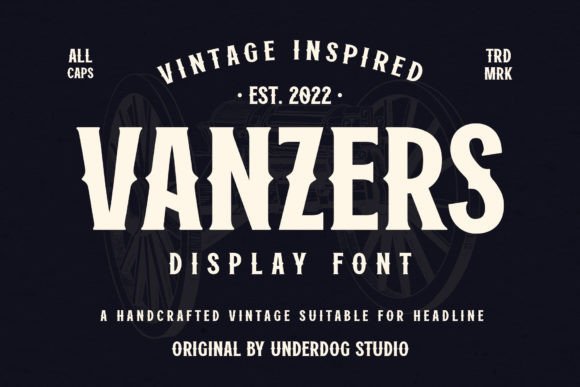
Introducing Vanzers Font, the ultimate choice for all your camping-themed design needs! Created by the talented Arterfak Project, this strong and captivating sans serif font is guaranteed to elevate your designs and leave a lasting impression. Get ready to embark on a typographic adventure like no other!
With its unique spurs added in the middle of letters, Vanzers exudes confidence and masculinity. Every character is meticulously crafted to ensure a powerful and bold appearance, making it perfect for headlines, labels, logos, storefronts, branding, billboards, and so much more. Whether you're designing for an outdoor adventure brand, a camping equipment store, or simply want to add a touch of ruggedness to your project, Vanzers has got you covered.
But what sets Vanzers apart from other fonts? Its versatility and attention to detail make it a true standout. The special characters included in this font open up a world of possibilities, allowing you to add unique and creative touches to your designs. Whether you want to incorporate decorative elements or add a touch of elegance, Vanzers has the tools you need to make your designs truly exceptional.
Not only does Vanzers offer stunning aesthetics, but it also provides multilingual support. Break through language barriers and reach a global audience with ease. No matter where your customers are located, Vanzers ensures that your message is communicated effectively and beautifully.
Imagine captivating your audience with a headline that demands attention, or creating a logo that perfectly represents the spirit of adventure. Vanzers empowers you to do just that. Its strong and confident appearance combined with its versatility makes it the go-to font for designers who want to make a statement.
Don't settle for ordinary fonts that blend into the background. With Vanzers, your designs will stand out, leaving a lasting impression on your audience. It's time to unleash your creativity and embark on a typographic journey that will elevate your designs to new heights.